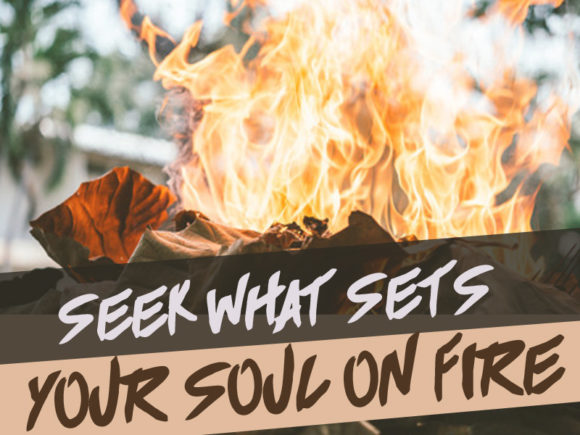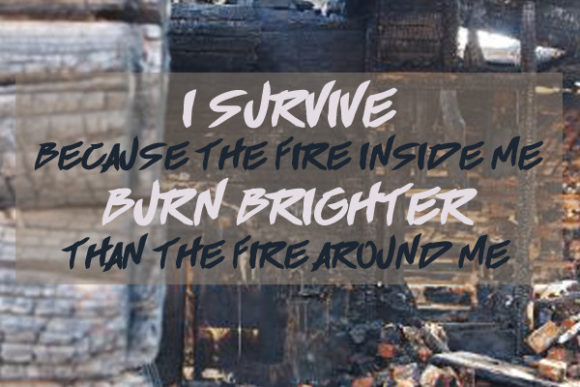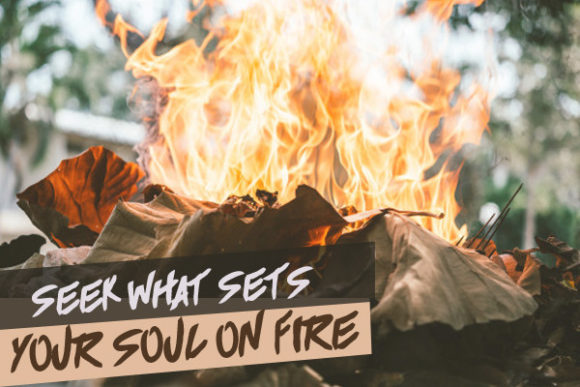
Introducing Broken Home Font: A Cool, Paint Brushed Display Font
In the world of typography, fonts play a crucial role in conveying messages, evoking emotions, and adding personality to designs. For designers and crafters, finding the right font can make all the difference in creating stunning visual content. If you’re on the hunt for a unique and versatile font, look no further than Broken Home Font. This cool, paint brushed display font is an incredible asset to any font library, capable of elevating any creation to new heights.
What is Broken Home Font?
Broken Home Font is a distinct, paint brushed display font that exudes a sense of rugged charm and character. Its broken, uneven strokes and paint-splattered texture give it a one-of-a-kind appearance that’s perfect for adding a touch of personality to designs. Whether you’re working on a project that requires a bold, eye-catching font or something more subtle and nuanced, Broken Home Font is an excellent choice.
Key Features of Broken Home Font
- Unique Paint Brushed Texture: The font’s paint brushed texture gives it a distinctive, hand-crafted feel that’s perfect for designs that require a personal touch.
- Broken, Uneven Strokes: The broken, uneven strokes add a sense of ruggedness and character to the font, making it stand out from more traditional fonts.
- Versatile and Adaptable: Despite its unique appearance, Broken Home Font is surprisingly versatile and can be used for a wide range of design projects, from bold headlines to subtle text.
- Easy to Read: Despite its broken texture, the font remains surprisingly easy to read, making it perfect for use in both digital and print designs.
Use Cases for Broken Home Font
Broken Home Font is an incredibly versatile font that can be used in a wide range of design projects. Here are just a few examples of how you can use this amazing font:
- Headlines and Titles: Use Broken Home Font to create bold, eye-catching headlines and titles that grab attention and add personality to your designs.
- Logos and Branding: The font’s unique texture and character make it perfect for use in logos and branding materials, helping to create a distinctive and memorable visual identity.
- Posters and Flyers: Add a touch of personality to your posters and flyers with Broken Home Font, using its bold, paint brushed texture to grab attention and convey your message.
- Digital Designs: The font is also perfect for use in digital designs, such as social media graphics, website headers, and more.
Why Choose Broken Home Font?
With so many fonts available, why choose Broken Home Font? Here are just a few reasons why this font stands out from the crowd:
- Unique and Distinctive: Broken Home Font is a truly unique and distinctive font that will help your designs stand out from the crowd.
- Highly Versatile: The font’s versatility means it can be used in a wide range of design projects, from bold headlines to subtle text.
- Easy to Use: Despite its unique texture, Broken Home Font is surprisingly easy to use and can be incorporated into designs quickly and easily.
In conclusion, Broken Home Font is an incredible asset to any font library, offering a unique and versatile solution for designers and crafters. Its cool, paint brushed texture and broken, uneven strokes give it a distinctive character that’s perfect for adding personality to designs. Whether you’re working on a bold headline or a subtle text, Broken Home Font is an excellent choice. So why not give it a try and see how it can elevate your designs to new heights?